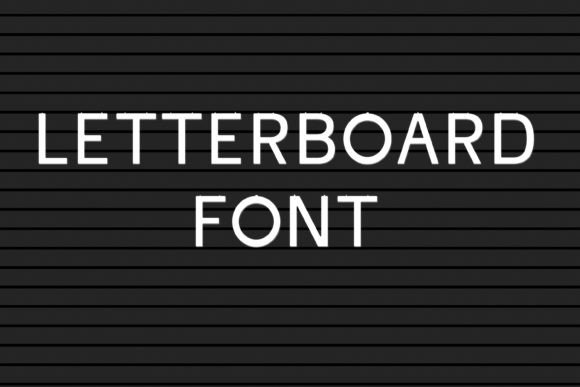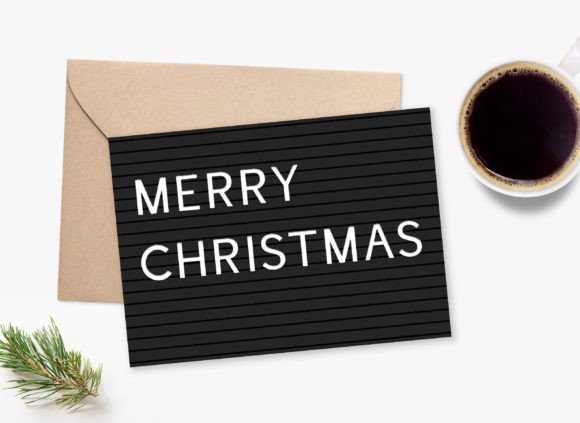
Letterboard is a clean, easy-to-read font with all capital letters. It has a simple, straight design without any extra decorations. This makes it perfect for clear and straightforward messages.
Letterboard Font